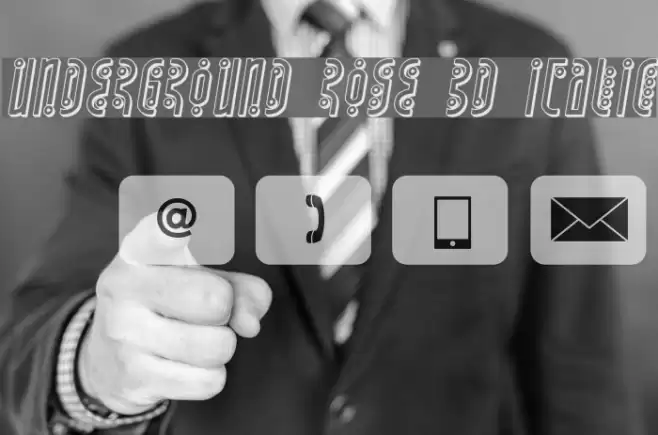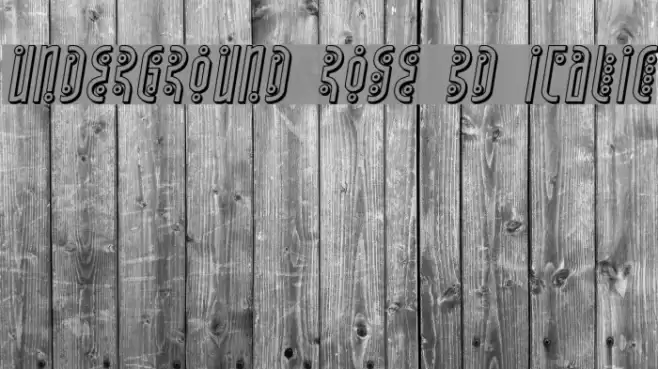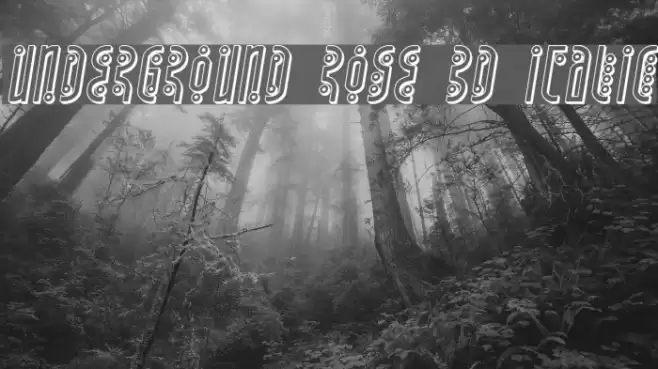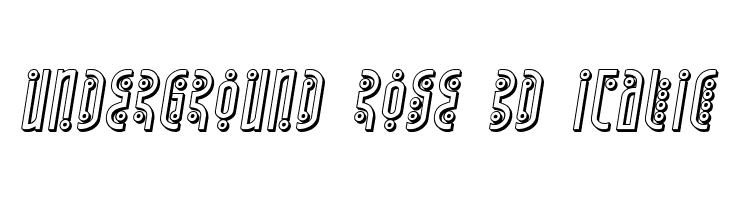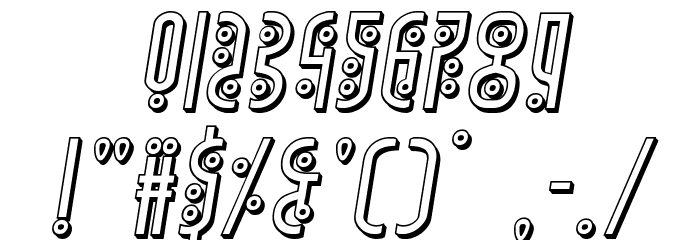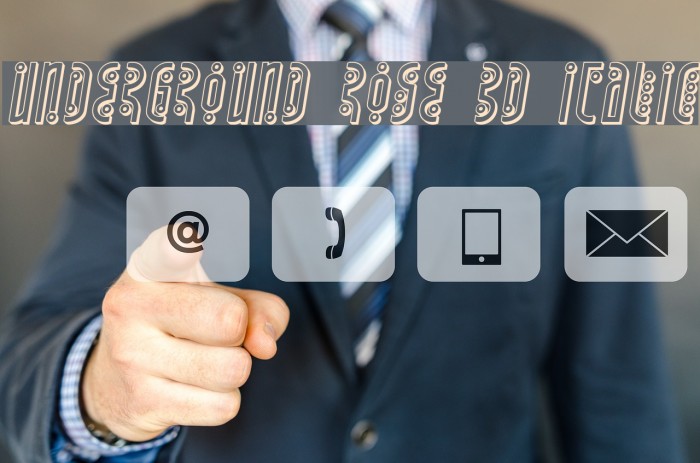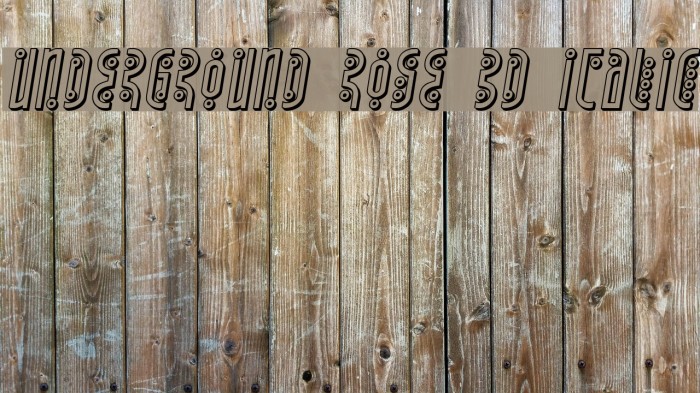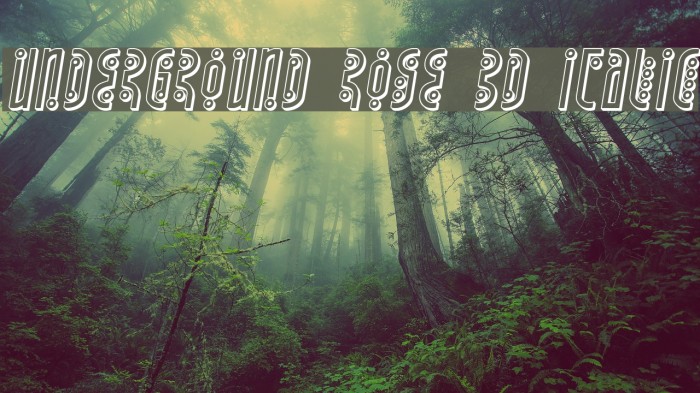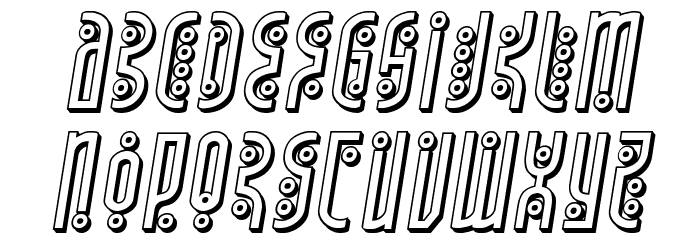
Underground Rose 3D Italic Font
Underground Rose 3D Italic Description
This font features a bold, 3D italic style with a unique decorative flair. Each character is outlined with a shadow effect, creating a sense of depth and dimension. The letters are adorned with circular embellishments, adding a playful and futuristic touch. The overall design is eye-catching and dynamic, making it suitable for projects that require a strong visual impact. The font maintains a consistent width and spacing, ensuring readability despite its intricate design. Its modern and artistic style makes it ideal for creative and unconventional applications.
A bold, 3D italic font with decorative circular accents and a modern, playful style from Uncategorized fonts.
- Proposed Projects: Ideal for posters, album covers, video game graphics, and branding that requires a bold statement.
- Overall Style: Modern, Decorative